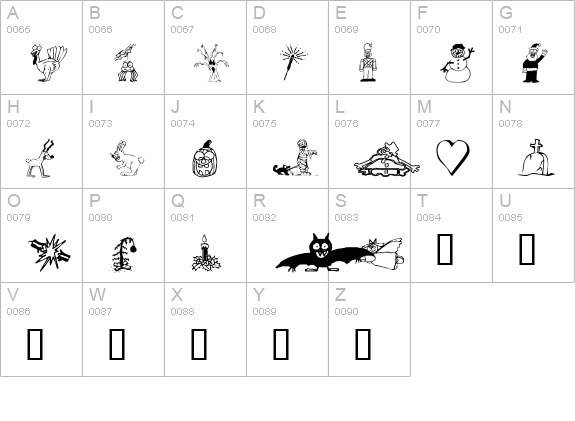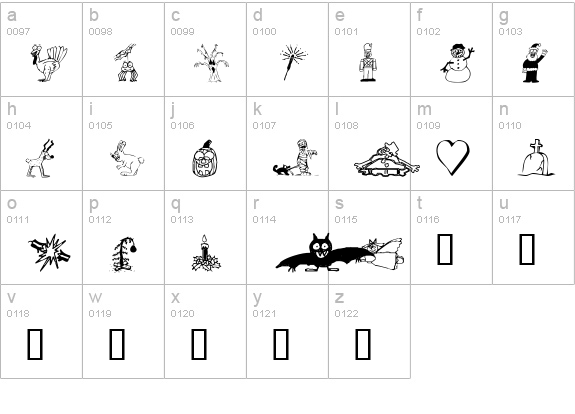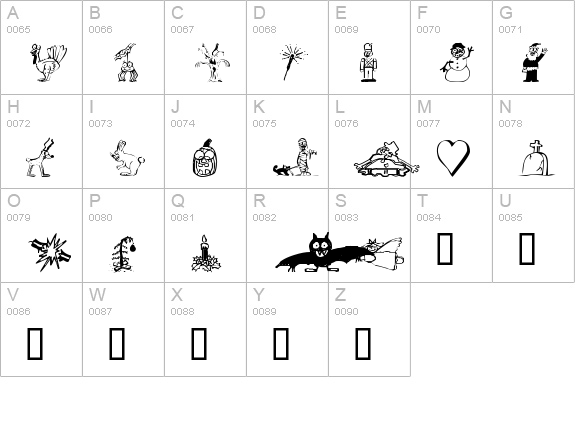
KR Silly Art Holiday Font Details
Introducing the whimsical and playful KR Silly Art Holiday font, a delightful typeface that is sure to add a touch of fun to any project. This unique font features charming and quirky characters that are perfect for creating eye-catching designs for the holiday season and beyond. With its festive flair and artistic charm, KR Silly Art Holiday is the ideal choice for greeting cards, invitations, posters, and more. Best of all, this fantastic font is available for free download at FontsMarket.com. Whether you're a professional designer or a creative hobbyist, you can easily access and use KR Silly Art Holiday to bring your projects to life. Don't miss out on this wonderful opportunity to add a touch of whimsy to your designs with this fabulous font. Download KR Silly Art Holiday today and let your creativity soar!